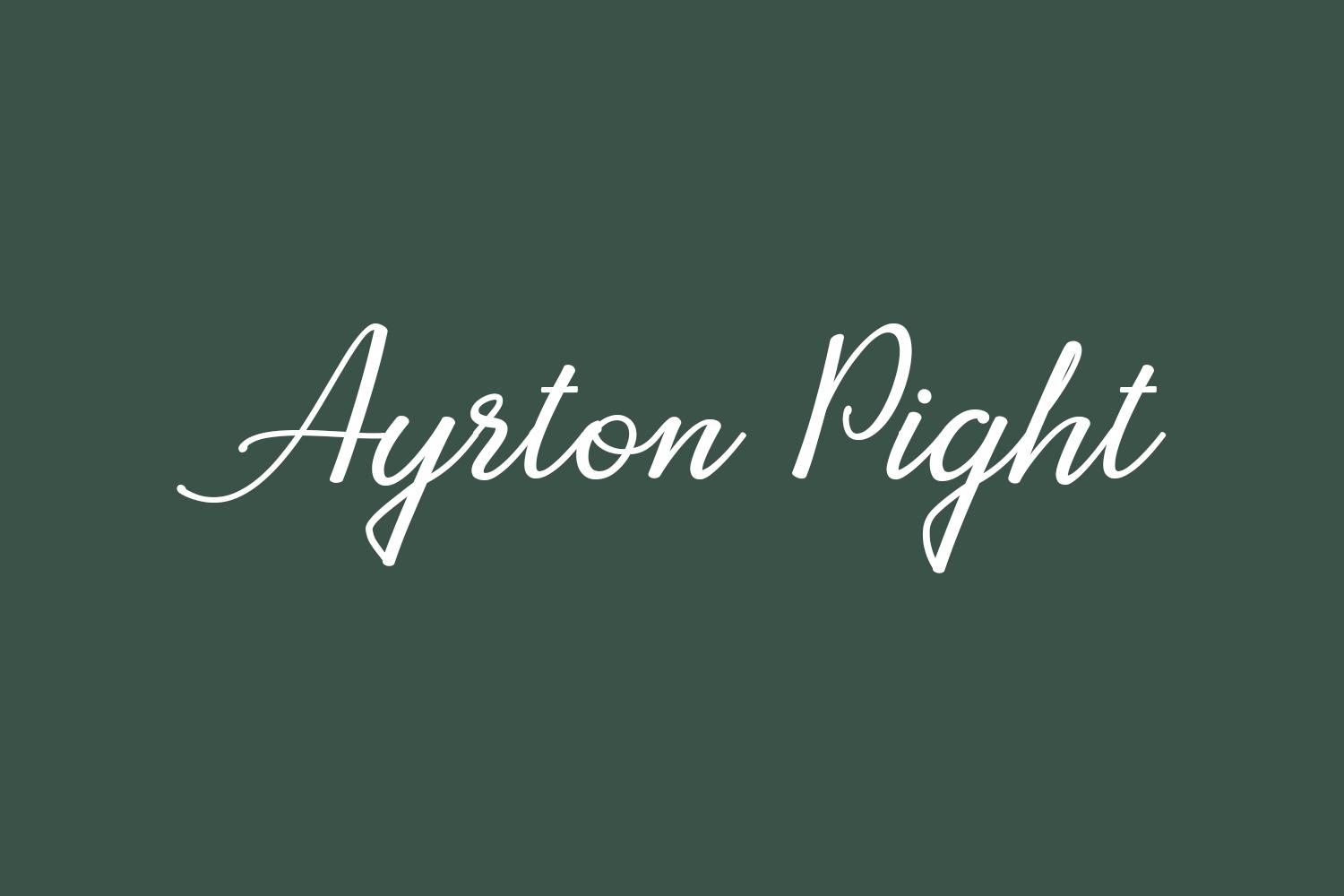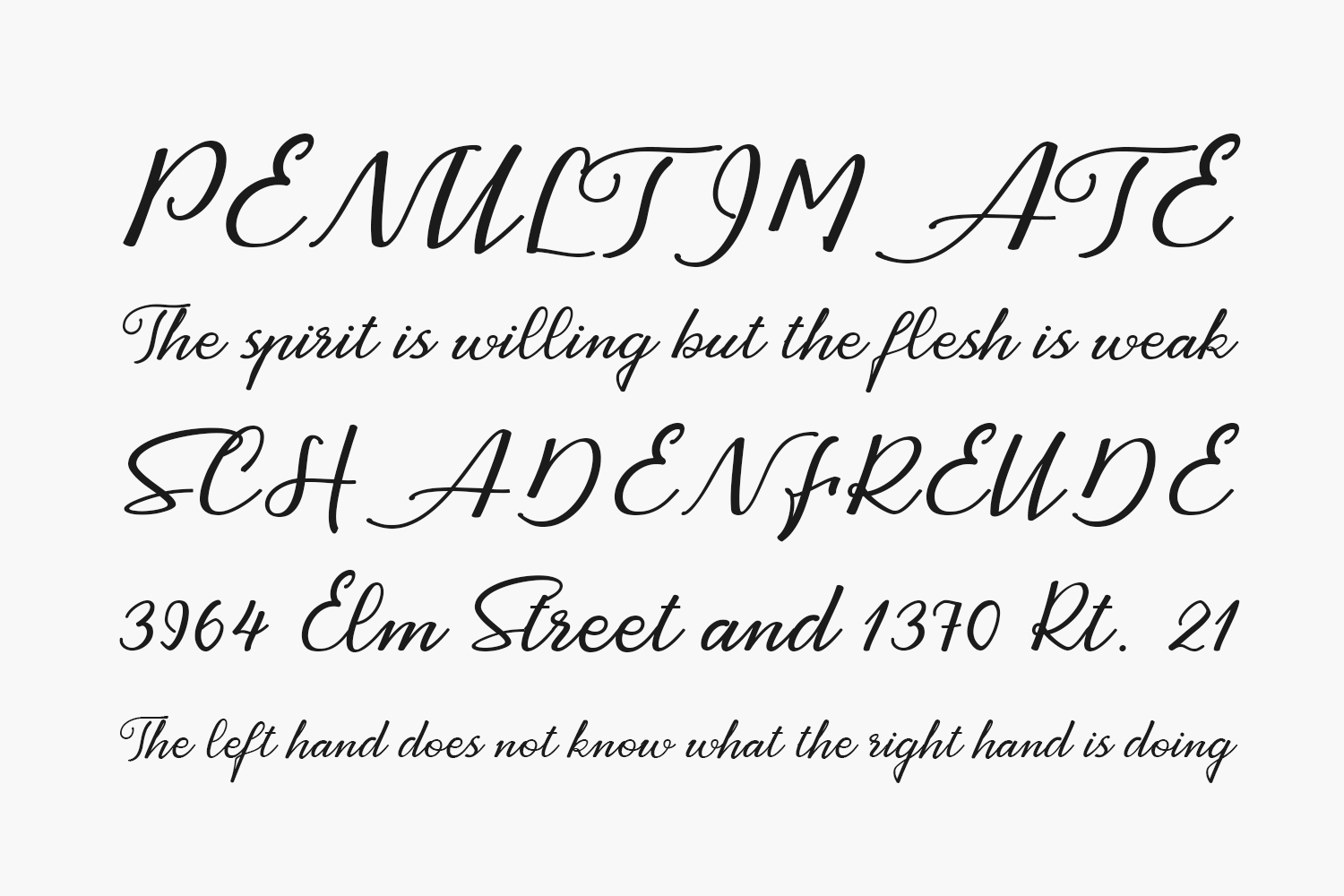
Ayrton Pight Free Font is a calligraphic font with beautiful characters. Get inspired by its unique charm. Ayrton Pight Free Font was designed by Attract Studio and is free for personal use only. Please purchase the full version for commercial use.